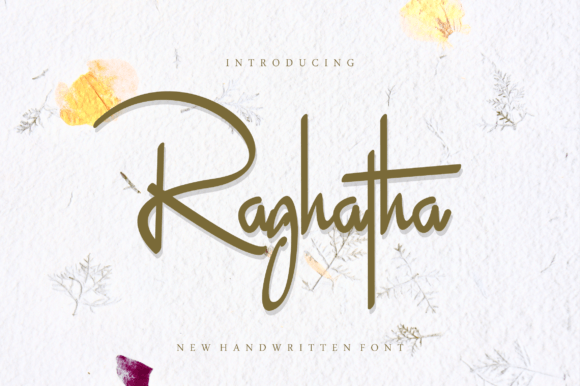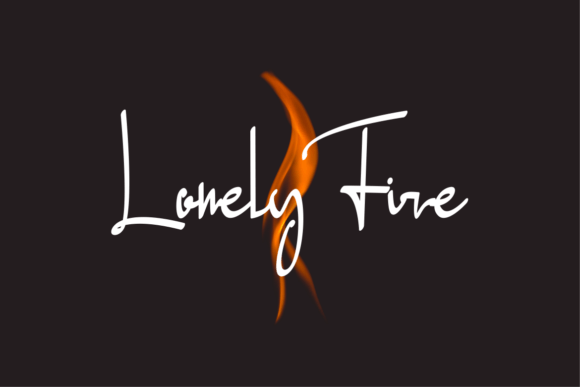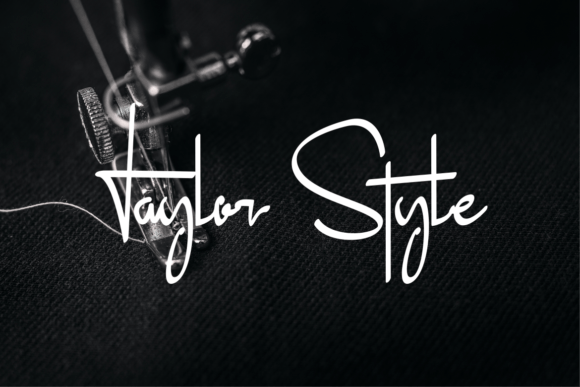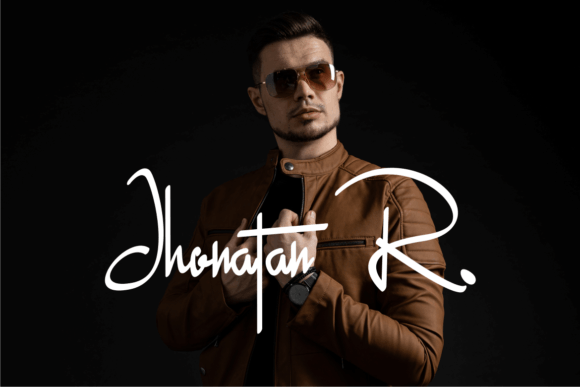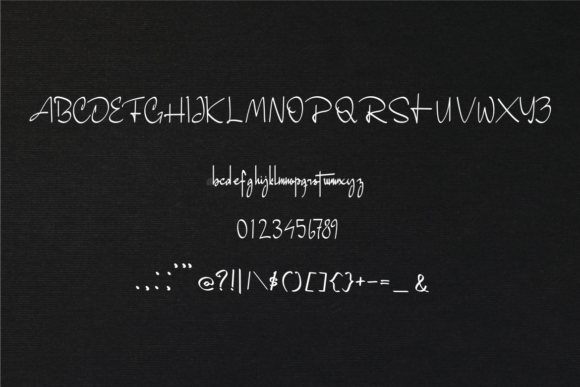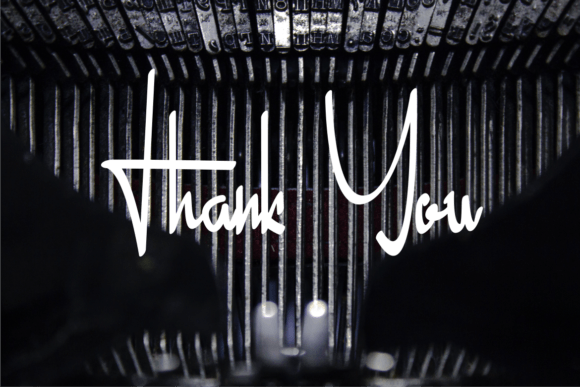
Raghatha Font
A Modern and Stylish Handwritten Script
Raghatha is a sleek handwritten signature font that blends modern elegance with a personal touch. Each letter features clean, flowing strokes that feel refined yet approachable. The stylish look makes it perfect for any project where you want your text to feel confident and unique.
Whether you’re creating branding, social media graphics, or packaging, Raghatha helps your words stand out with sophistication.
Raghatha is a versatile font that adapts beautifully to different design needs. It’s ideal for logos and business cards that need to look polished and professional. The signature style creates an upscale, personal feel that’s great for luxury brands and creative businesses.
Use Raghatha on product packaging and labels to add elegance and personality. It also works perfectly for social media content, blog headers, and YouTube thumbnails where you want a clean, modern look.
Raghatha shines in digital signatures, email templates, and personal stationery. It brings a handcrafted touch to every message, making communication feel more authentic.
This font includes uppercase and lowercase letters, numbers, and punctuation marks. Ligatures help your text flow naturally and look seamless.
Clear, Elegant, and Easy to Read
Even with its handwritten style, Raghatha stays clear and legible in any size. Balanced spacing between letters ensures your text looks organized, whether you use it for large headlines or smaller captions.
Many designers like pairing Raghatha with a simple sans-serif font to create contrast. Use Raghatha for titles and the sans-serif for supporting text. This combination guides the reader’s eye and keeps your layouts clean and modern.
To highlight Raghatha’s sophisticated style, use neutral backgrounds and soft color palettes. Tones like ivory, blush, and warm gray help the elegant shapes stand out without distractions.
For branding materials and packaging, consider adding subtle line art or minimalist icons to complement the font’s signature feel. When designing social media graphics, keep your layouts clean so the font remains the focus.
Think about the mood you want to share. Raghatha is perfect for projects that should feel refined, stylish, and genuine.
Raghatha is more than just a modern script. It’s a design tool that transforms simple words into something memorable. Its clean lines and flowing curves bring beauty and confidence to any project.
Adding Raghatha to your font collection means you always have a reliable choice for professional and creative work. From logos and product packaging to social media and personal branding, this font adapts effortlessly to your ideas.